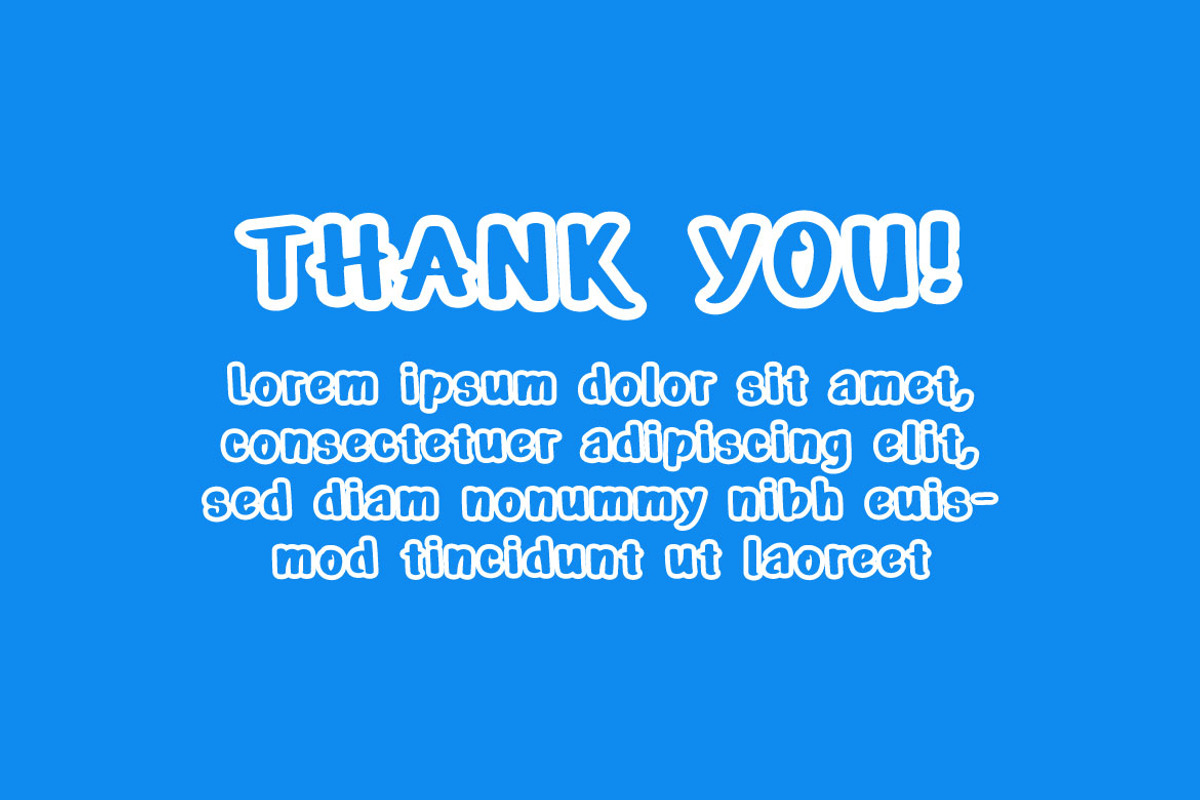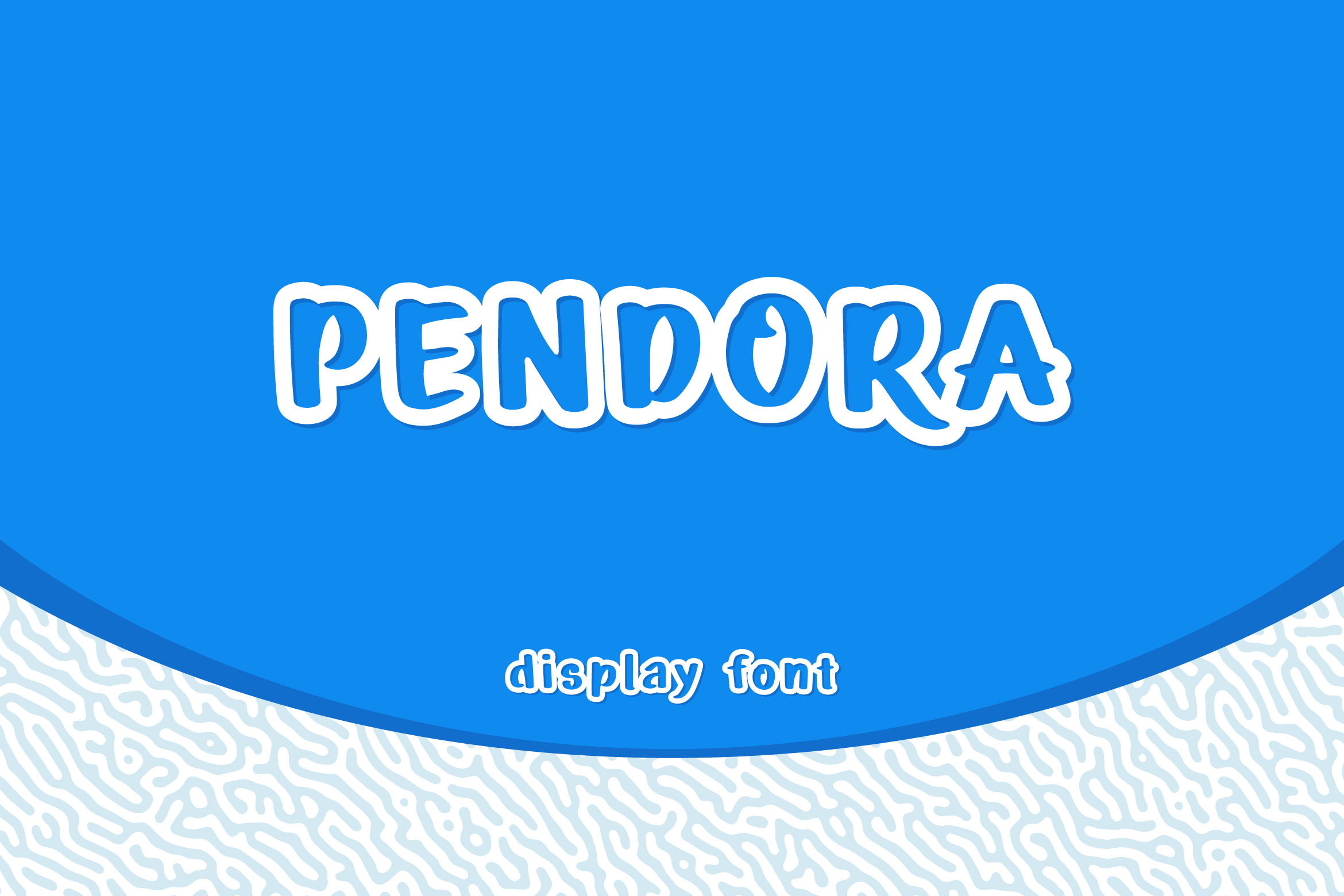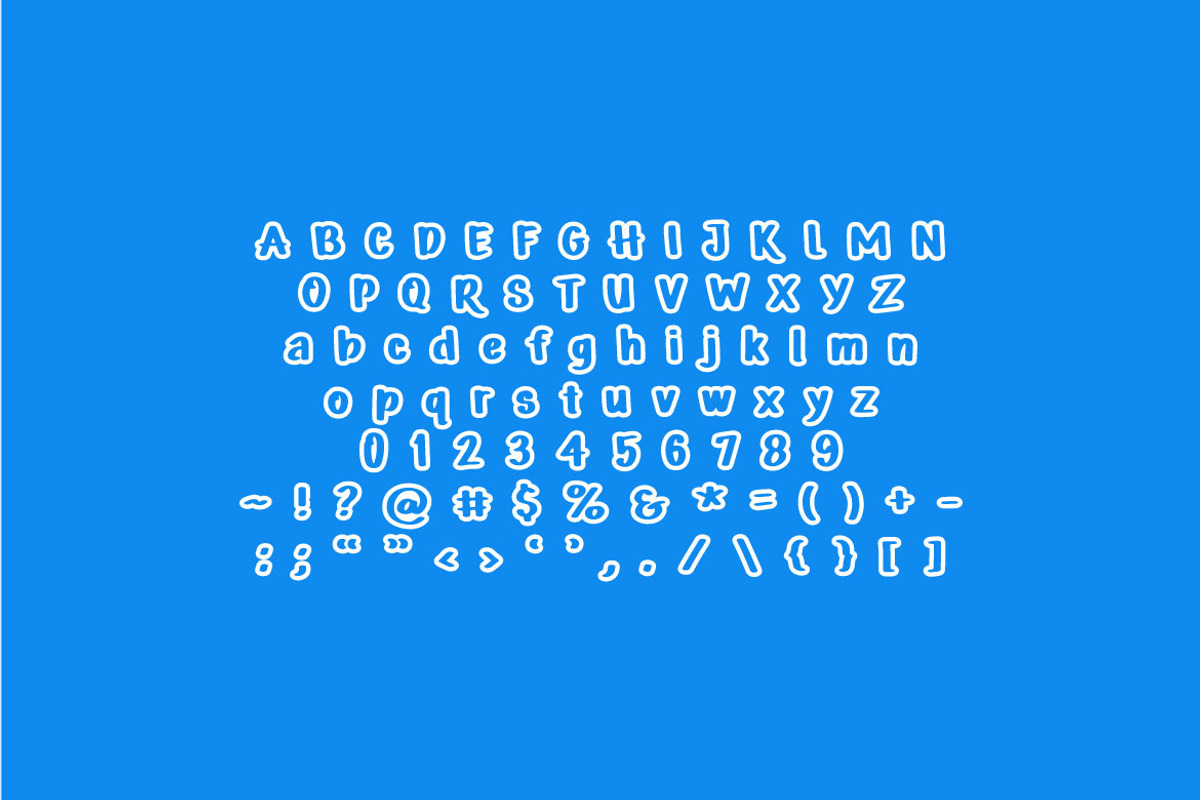
Pendora - Outline Display Font
If you are looking for an outline comic display font with handmade looking, meet PENDORA
Pendora is perfect for any works, such as your comic, poster, card, book title, headline of news, banner, flyer, stationery and many more. It also can be used in any scale work.